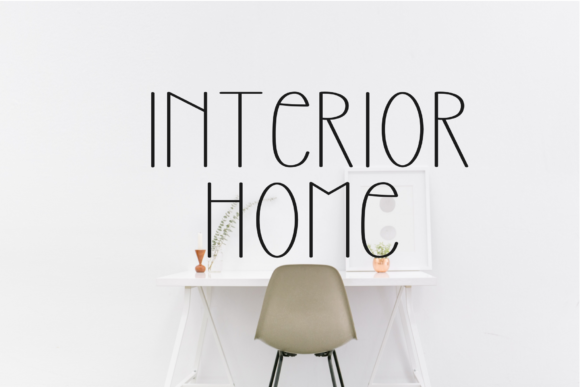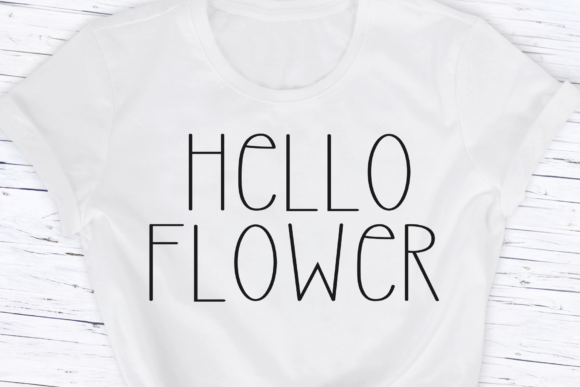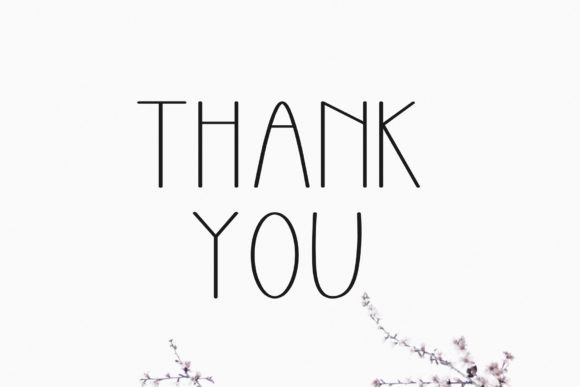
Introducing Beauty Flower Font: Elevate Your Designs with Elegance
Are you on the hunt for a font that exudes simplicity, elegance, and versatility? Look no further than the Beauty Flower Font. This stunning sans serif font is designed to make your creative projects stand out from the crowd. With its thin lettered design, Beauty Flower Font is perfect for a wide range of applications, from crafting beautiful branding materials to creating eye-catching social media graphics.
What Makes Beauty Flower Font So Special?
Beauty Flower Font is a simple and thin lettered sans serif font that boasts a clean and minimalist aesthetic. Its delicate design makes it an excellent choice for designers and crafters who want to add a touch of elegance to their work. Whether you’re creating a logo, brochure, or social media post, Beauty Flower Font is sure to make your project look sophisticated and refined.
Endless Possibilities with Beauty Flower Font
One of the best things about Beauty Flower Font is its incredible versatility. It can easily be matched to an incredibly large set of projects, making it a valuable addition to your font library. Here are just a few ideas to get you started:
- Branding materials: Use Beauty Flower Font to create stunning logos, business cards, and letterheads that showcase your brand’s personality.
- Social media graphics: Add a touch of elegance to your social media posts with Beauty Flower Font. It’s perfect for creating eye-catching graphics, quotes, and inspirational messages.
- Wedding and event planning: Beauty Flower Font is a popular choice for wedding and event planners. Use it to create beautiful invitations, menus, and signage that set the tone for your special day.
- Crafting and DIY projects: If you’re a crafter or DIY enthusiast, Beauty Flower Font is a great addition to your toolkit. Use it to create beautiful labels, signs, and other decorative elements for your projects.
Why Choose Beauty Flower Font?
So why should you choose Beauty Flower Font for your next project? Here are just a few reasons:
- Unique and elegant design: Beauty Flower Font boasts a unique and elegant design that’s sure to make your project stand out.
- Highly versatile: This font can be used for a wide range of projects, from branding materials to social media graphics.
- Easy to read: Despite its delicate design, Beauty Flower Font is easy to read, making it perfect for body text and captions.
- Scalable: Beauty Flower Font is highly scalable, making it perfect for use on a variety of platforms, from business cards to billboards.
Tips for Using Beauty Flower Font
Here are a few tips for getting the most out of Beauty Flower Font:
- Pair it with bold fonts: Beauty Flower Font looks great when paired with bold fonts. Try using it with a bold sans serif font for a striking contrast.
- Use it for headlines and titles: Beauty Flower Font is perfect for headlines and titles. Use it to add a touch of elegance to your project.
- Experiment with colors: Beauty Flower Font looks great in a variety of colors. Experiment with different colors and gradients to find the perfect look for your project.
In conclusion, Beauty Flower Font is a stunning sans serif font that’s perfect for designers and crafters who want to add a touch of elegance to their work. With its simple and thin lettered design, Beauty Flower Font is highly versatile and can be used for a wide range of projects. Whether you’re creating branding materials, social media graphics, or crafting and DIY projects, Beauty Flower Font is sure to make your project stand out. So why wait? Add Beauty Flower Font to your font library today and start creating beautiful projects that showcase your creativity and style.